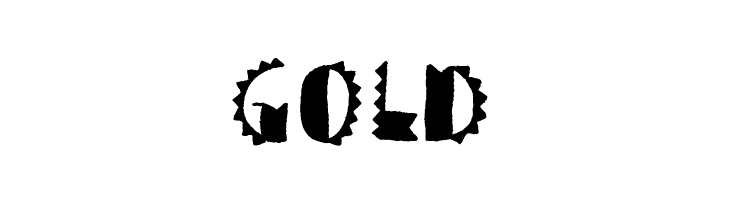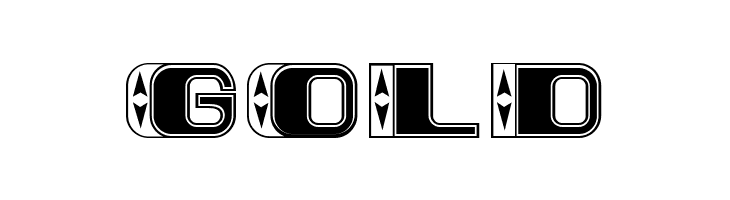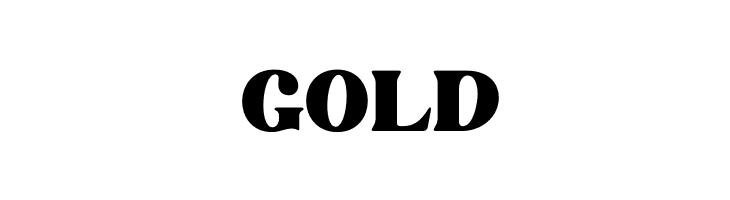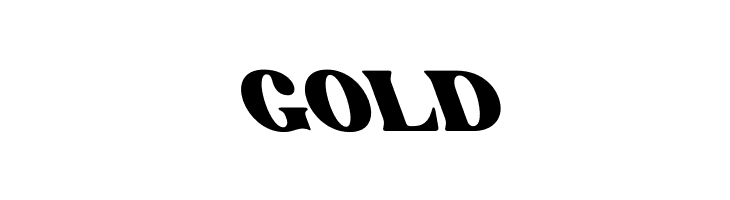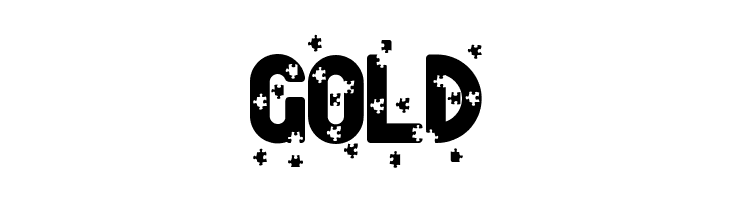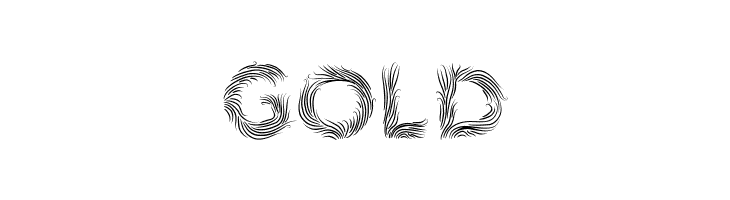
A bold, jagged font with a rugged, hand-cut appearance.
A bold, geometric font with an industrial and futuristic style.
A bold, playful font with puzzle piece cutouts in each character.
A bold serif font with strong strokes and classic design.
A bold, oblique serif font with high contrast and dynamic style.
An artistic font with swirling, intricate line patterns creating a dynamic look.
A playful, whimsical font with flowing, cursive-like strokes.
An ornate and decorative font with intricate floral and mythical designs.